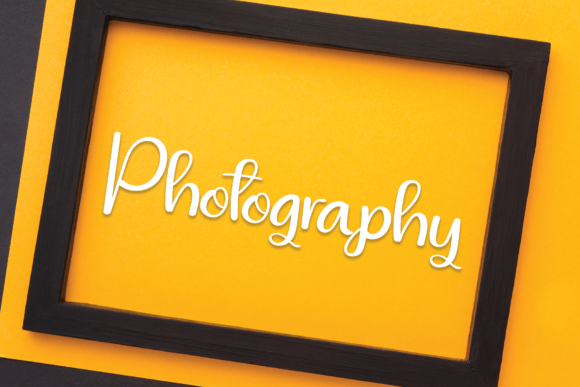
Introduction to Pastel Cake Font
Do you ever find yourself in the midst of a creative project, frantically searching for the perfect font to bring your vision to life? You’re scrolling through design resources, and suddenly, you stumble upon a font that makes your heart skip a beat. For many designers, this moment is a game-changer. It’s the moment when everything falls into place, and the project starts to take shape.
One such font that can evoke this feeling is the Pastel Cake Font. This simple yet charming handwritten font is a design treasure trove, waiting to be discovered. With its soft, pastel hues and elegant script, it’s the perfect addition to any creative project, whether you’re working on a digital design, a presentation, or a greeting card.
As a valuable resource for designers, the Pastel Cake Font offers a unique blend of style and versatility, making it an ideal choice for projects that require a touch of whimsy and sophistication. With its transparent background and high-quality design, it’s a free download that’s sure to become a go-to resource for many creatives.
Key Features of Pastel Cake Font
- High-quality, hand-drawn design perfect for creative projects
- Transparent background for easy integration into various design elements
- Perfect for designers seeking a unique, whimsical design resource
- Unique, pastel-colored design elements ideal for baking, cooking, and food-related projects
Honest Review: Pastel Cake Font
I recently came across the Pastel Cake Font and I must say, it’s a lovely addition to any creative project. The design is feminine, whimsical, and perfect for those who want to add a touch of sweetness to their designs.
- What works well: The Pastel Cake Font is also versatile and can be used for a variety of creative projects, from food labels to wedding invitations. It’s perfect for designers who want to add a touch of personality to their work.
However, there are a few limitations to consider. ⚠️ The font may not be suitable for all types of designs, and the lack of bold weights may limit its use in certain situations. Additionally, the font may not be as legible at smaller font sizes, which could be a concern for designers who need to use it in small print.
Overall, I’m impressed with the Pastel Cake Font. It’s a high-quality design resource that’s perfect for designers who want to add a touch of whimsy to their work. While it may have some limitations, I believe it’s a great addition to any design library.
The Pastel Cake Font is a high-quality, free download design resource perfect for adding a touch of whimsy to your creative projects. With its soft, pastel colors and delicate script, this font is ideal for designers looking to create eye-catching and visually appealing designs.
Tips for Getting the Most Out of Pastel Cake Font
To get the most out of the Pastel Cake Font, be sure to pair it with a transparent background to really make the font pop. You can also experiment with different font sizes and colors to create a unique and eye-catching design.
The Pastel Cake Font is perfect for a variety of creative projects, including social media graphics, blog posts, and product labels. Its soft, pastel colors and delicate script make it ideal for designers looking to create a whimsical and playful aesthetic.